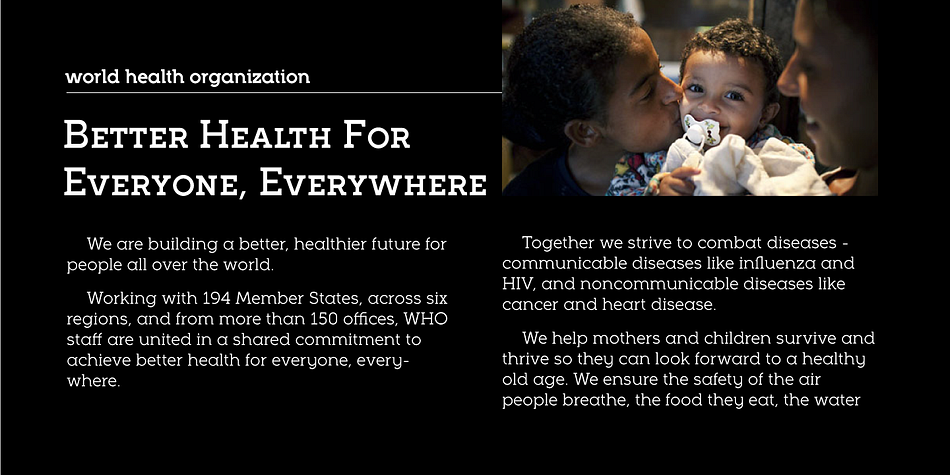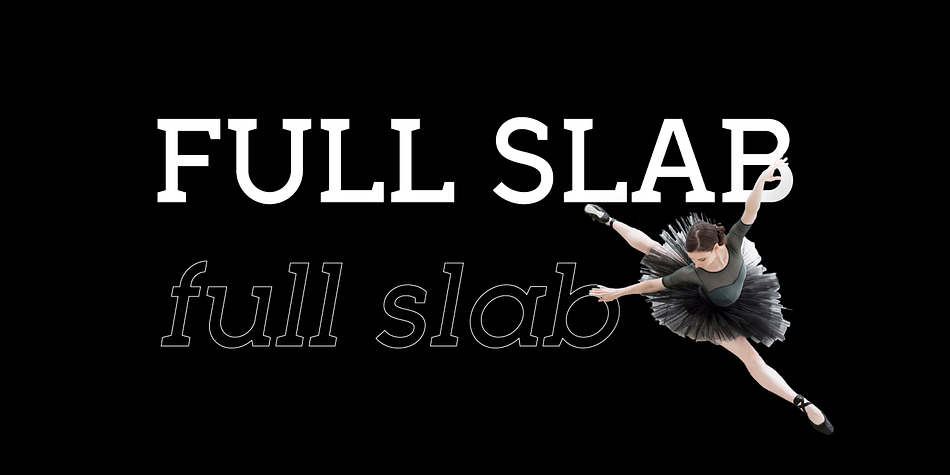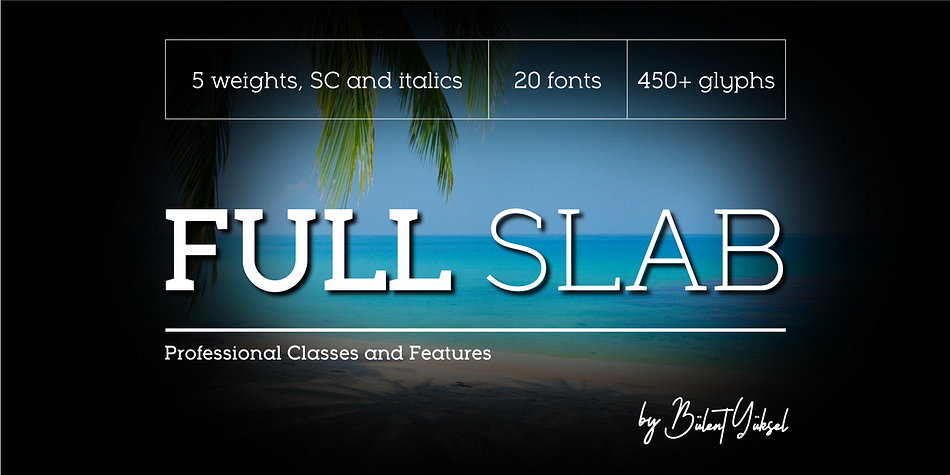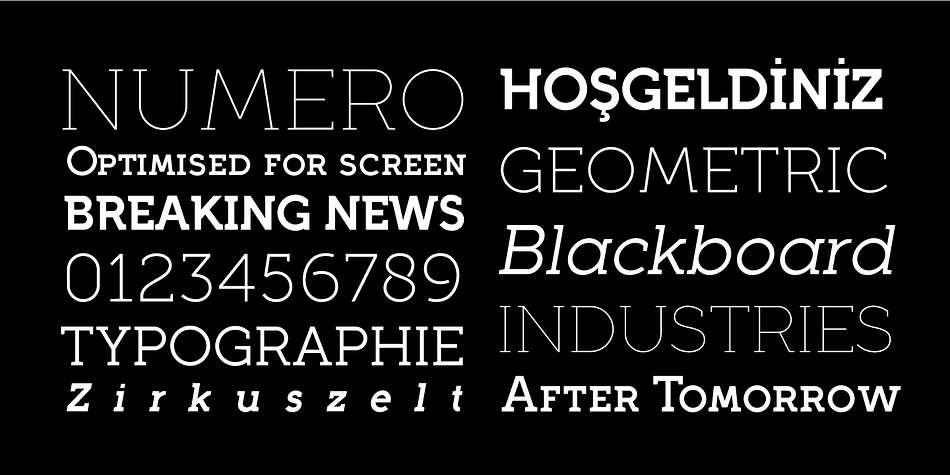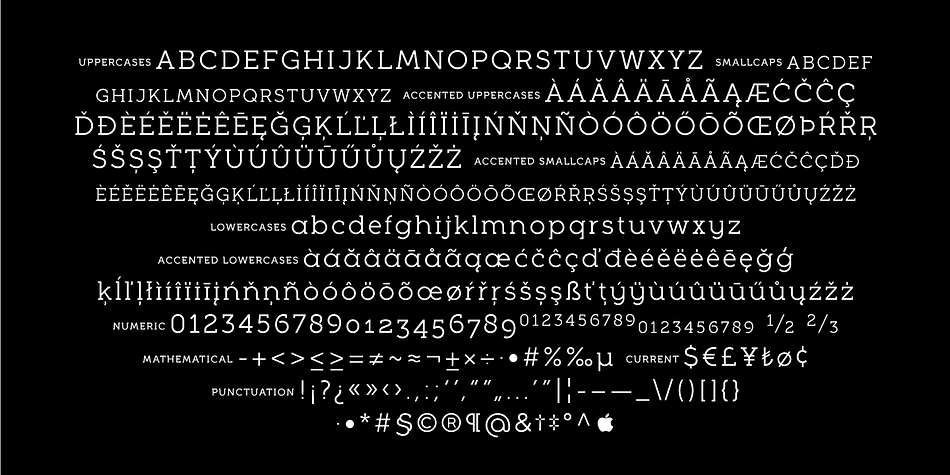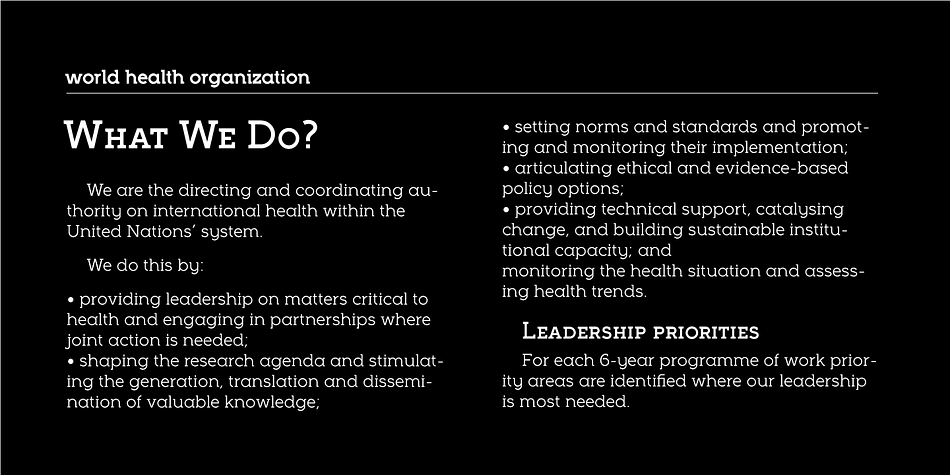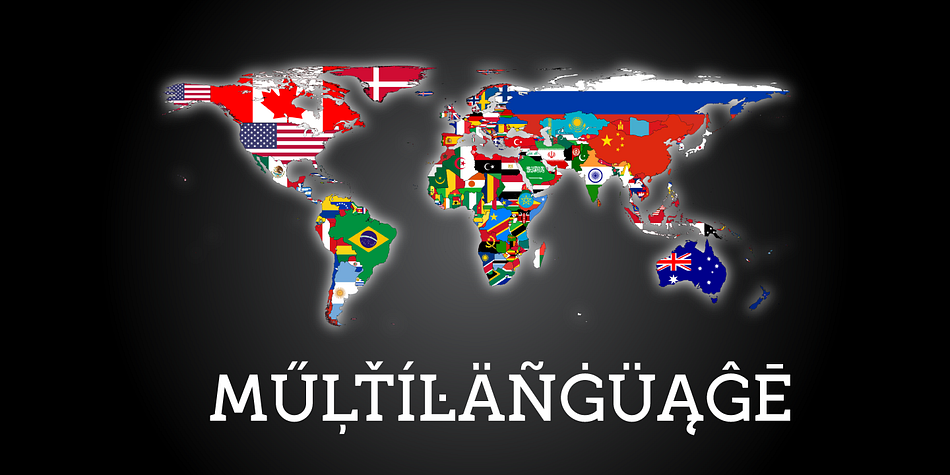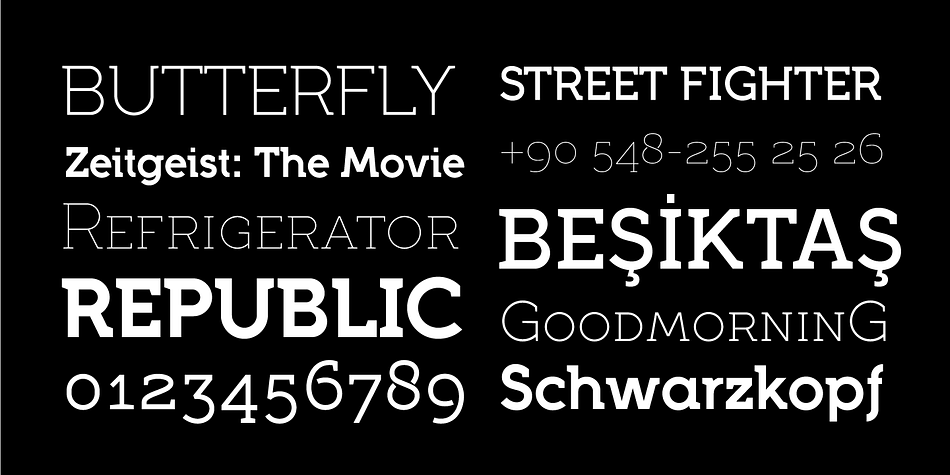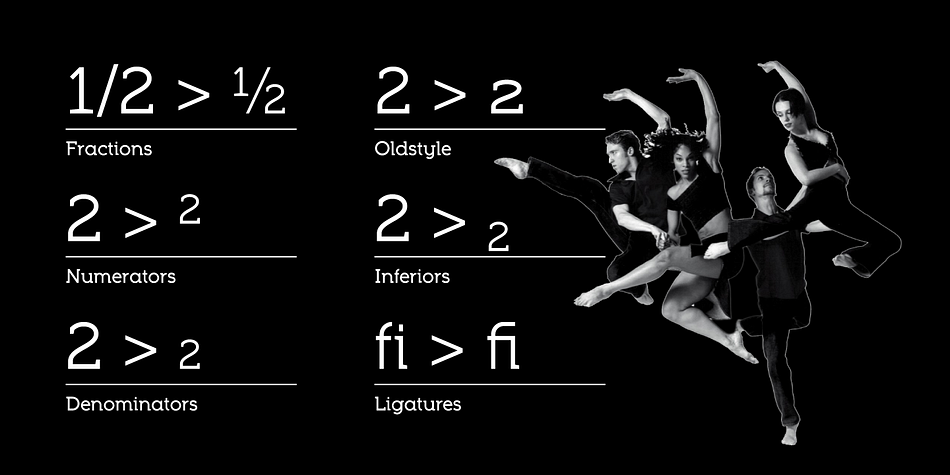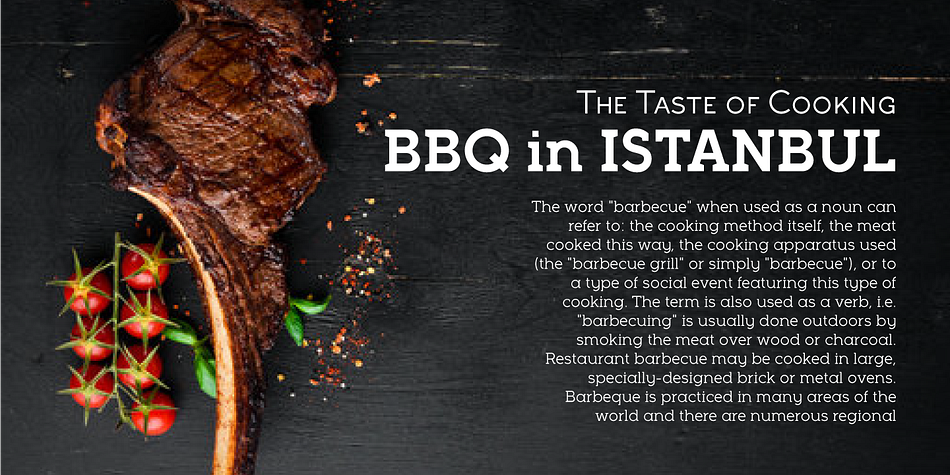
Designed by Bülent Yüksel, Full Slab is a slab serif font family. This typeface has twenty styles and was published by Bülent Yüksel.
FULL SLAB
Full Slab is the younger brother of original Full Sans, Full Neue and Full Tools.
Ideally suited for advertising and packaging, editorial and publishing, logo, branding and creative industries, poster and billboards, small text, wayfinding and signage as well as web and screen design.
Full Slab provides advanced typographical support for Latin-based languages. An extended character set, supporting Central, Western and Eastern European languages, rounds up the family.
The designation “Full Slab LC 50 Book” forms the central point. The first figure of the number describes the stroke thickness: 10 Thin to 90 Bold. Full Slab LC comes 5 weights and italics also Full Slab SC comes 5 weights and italics total 20 types. The family contains a set of 485 characters.
Case-Sensitive Forms, Classes and Features, Small Caps from Letter Cases, Fractions, Superior, Inferior, Denominator, Numerator, Old Style Figures just one touch easy In all graphic programs.
Full Slab is the perfect font for web use.